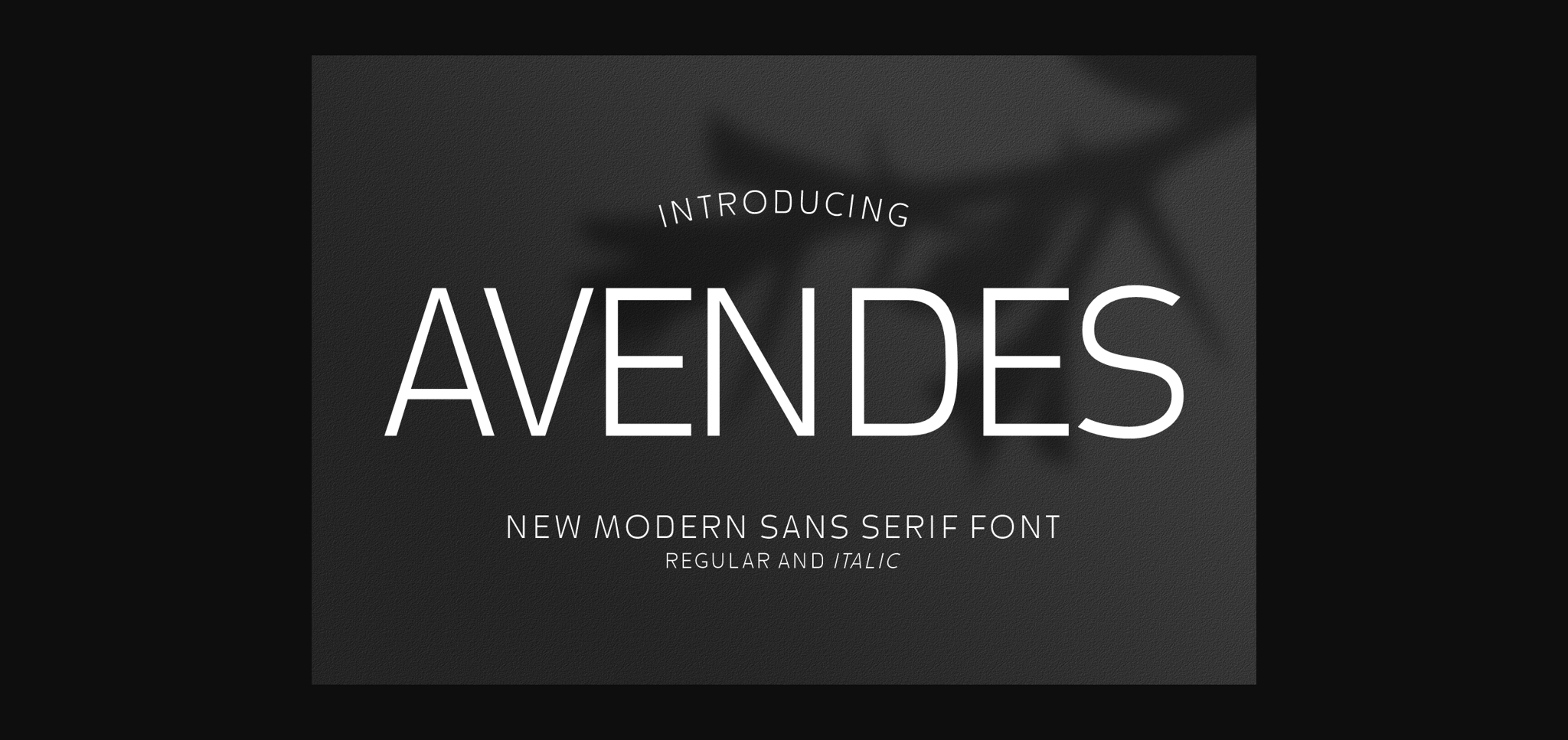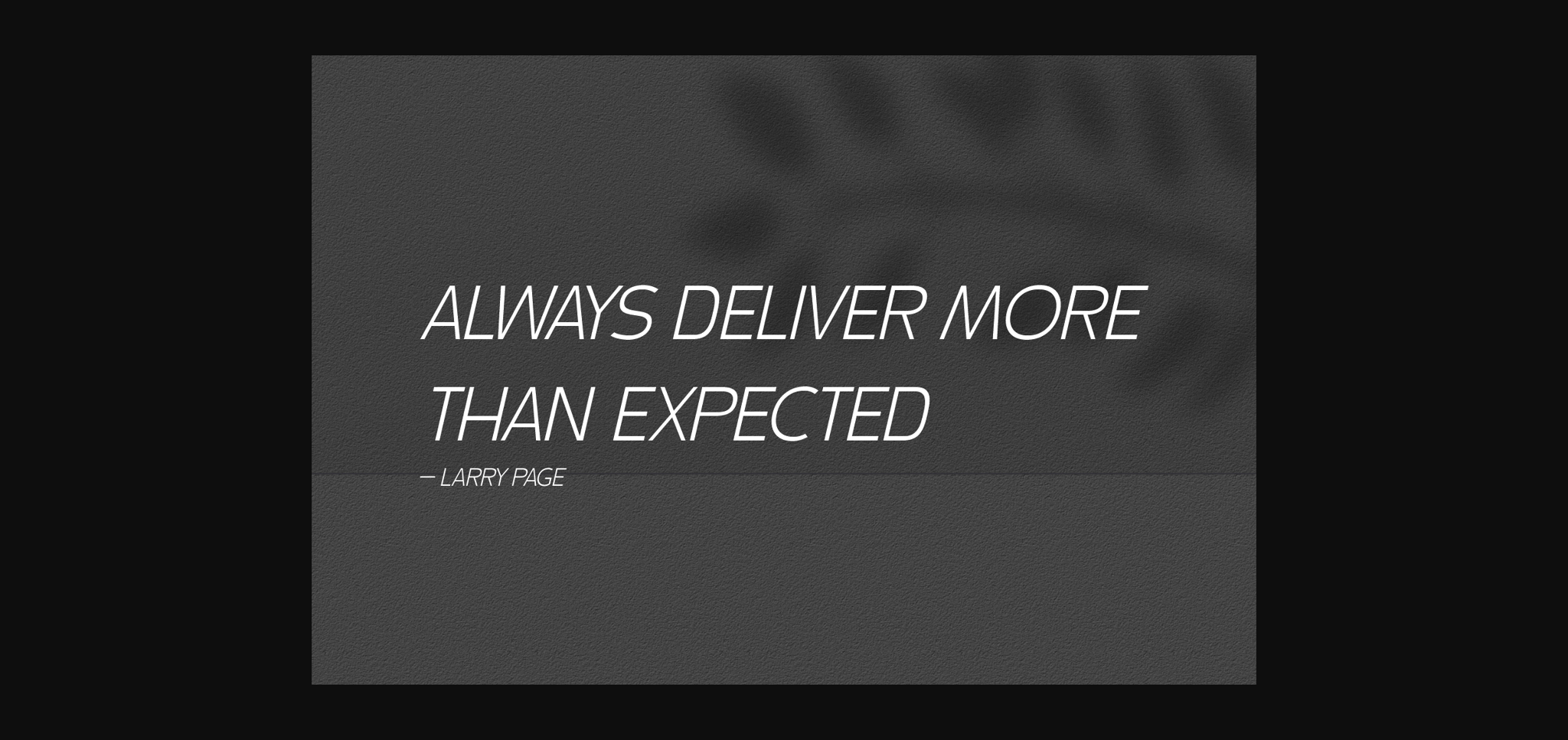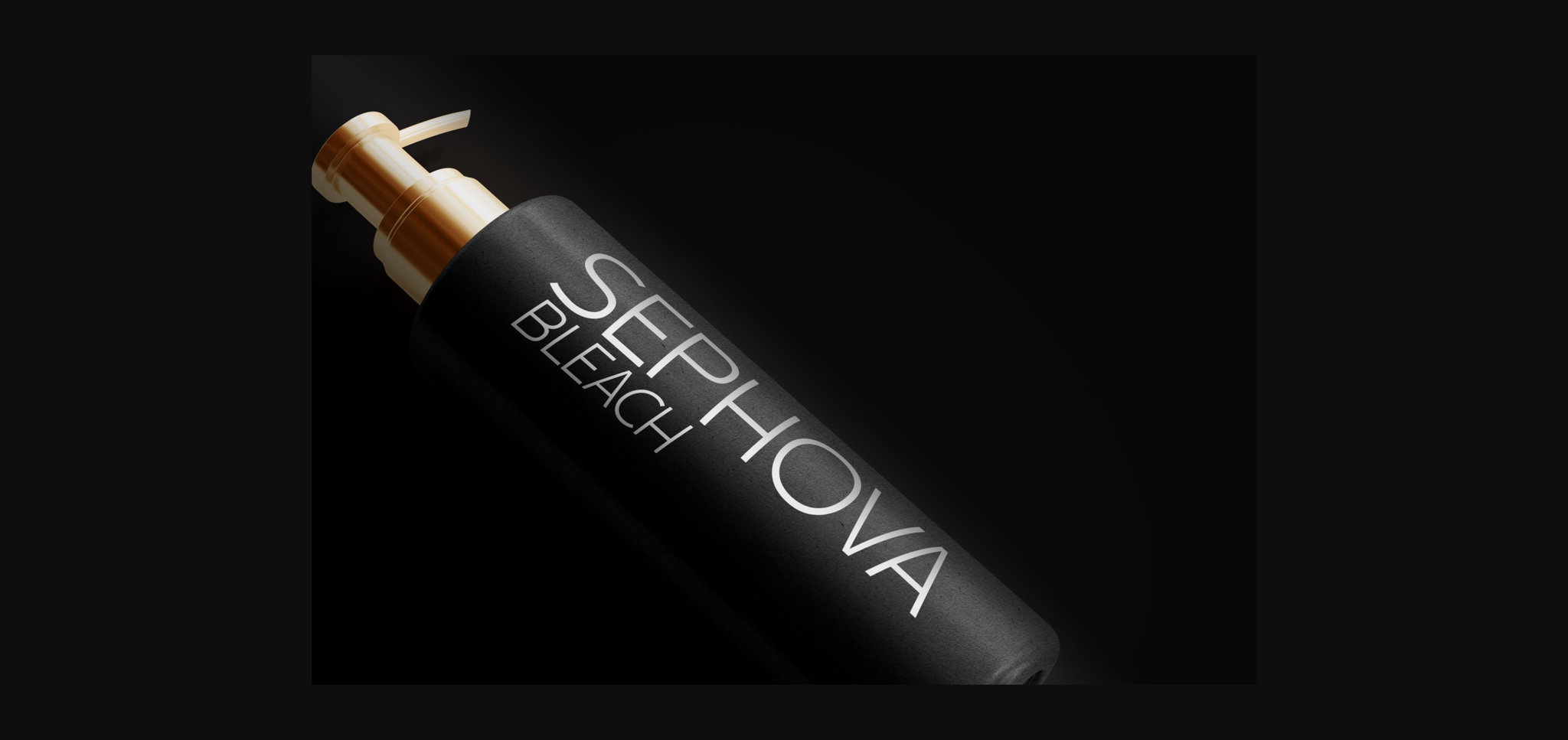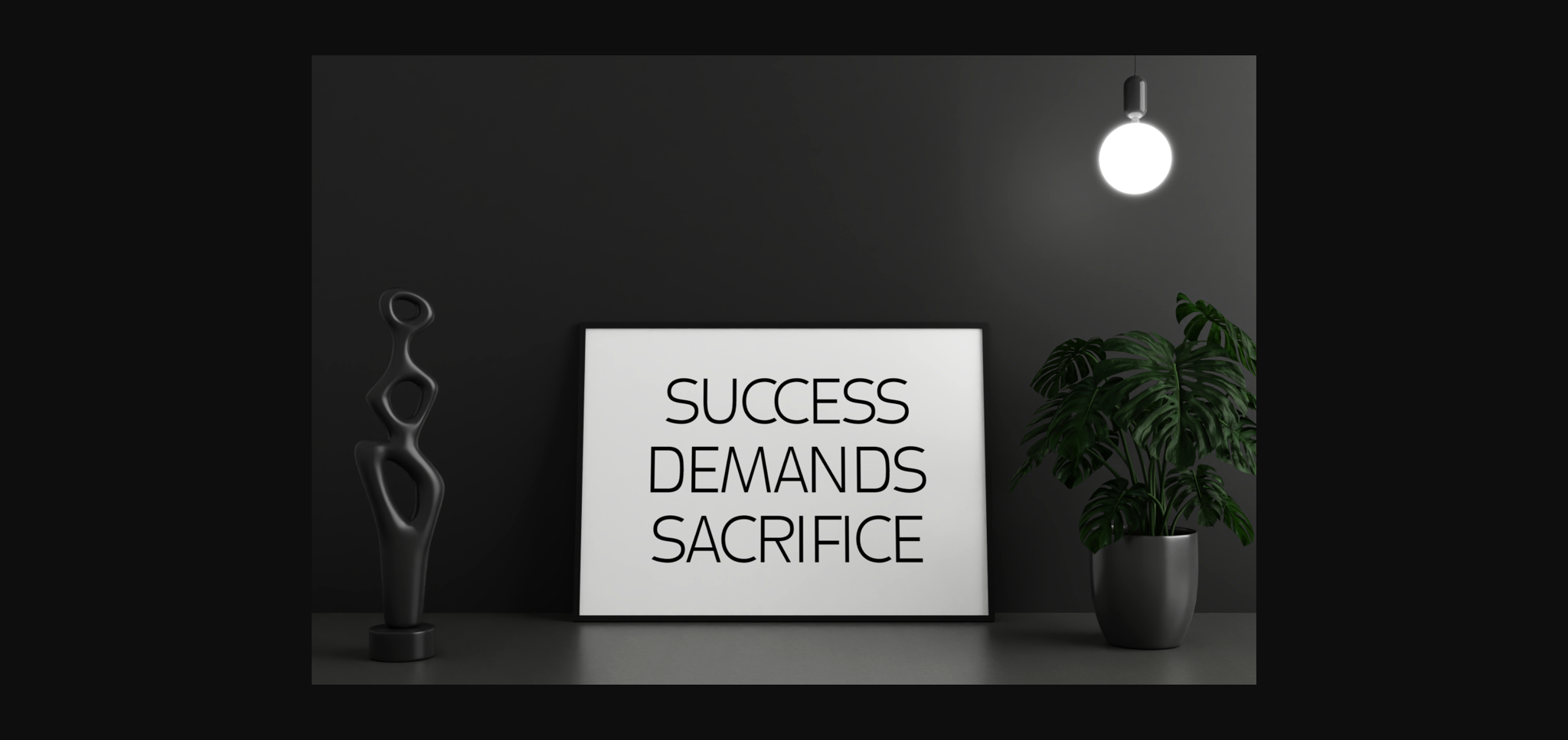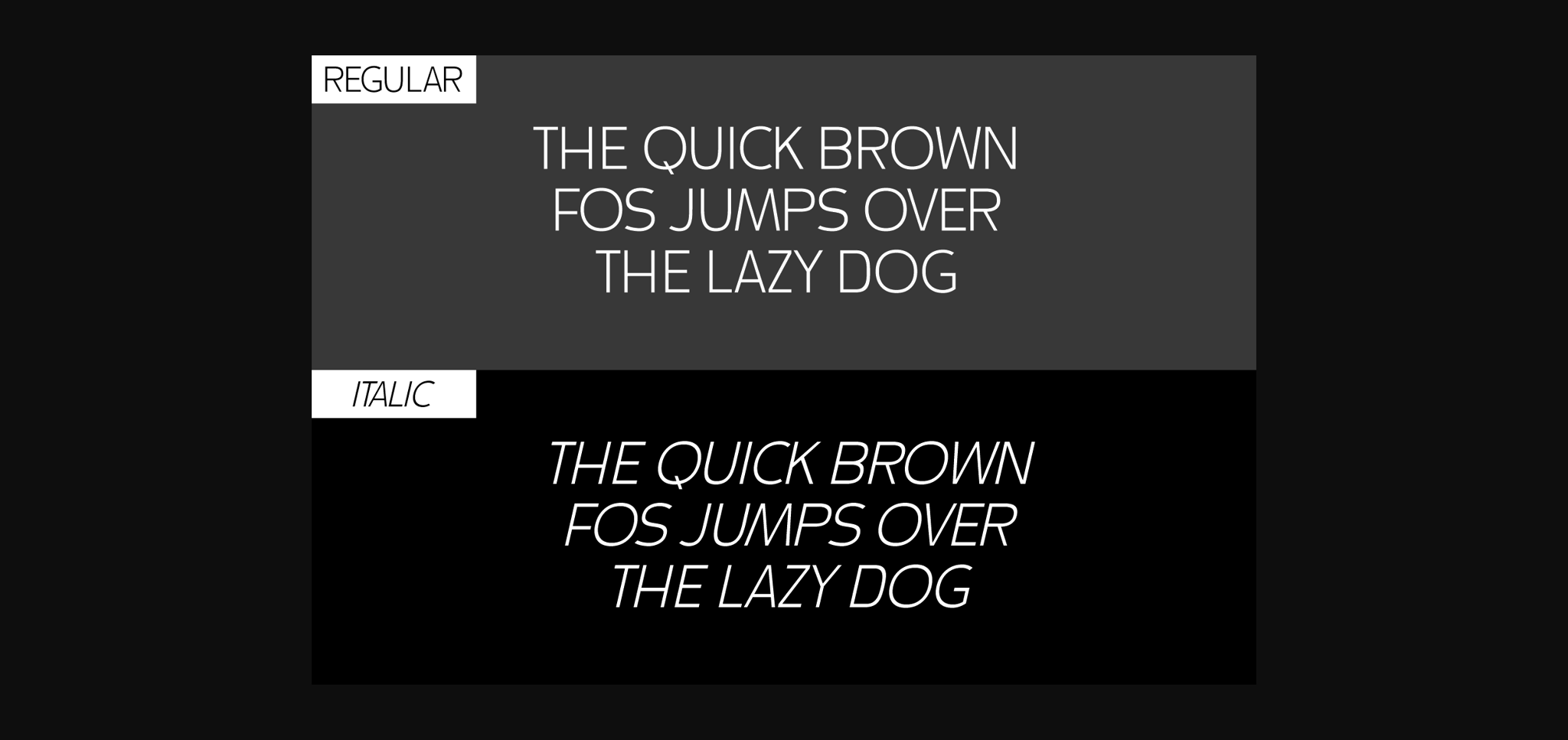
Avendes Font
About Avendes Font
Indulge in the aesthetic pleasure of the Avendes font; a beautiful blend of elegance and minimalism. This Sans Serif font comes with an authentic feel, perfect for creating a strong brand identity. It embodies versatility in design and can be utilized across a myriad of mediums from apparel and product packaging, to book covers and greeting cards. Offering neatly rounded and smooth letters, Avendes exemplifies a clean design choice. Whether for logotypes, magazine covers or simply a profound quote, its sleek style leaves a mark. Available in regular and italic, this font transcends seasons and fits into the latest trends. Enjoy the sophisticated and stylish essence of the Avendes font family and explore the possibilities it offers for your projects.